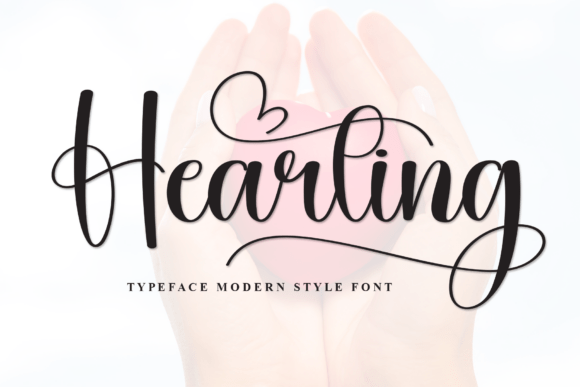
Discover the Refined Elegance of Hearting Font
Have you ever found yourself doodling in a notebook, lost in the flow of a pen or pencil as you create beautiful, whimsical letters? That’s exactly the feeling you get when working with Hearting Font, a stylish script font that captures the essence of hand-drawn calligraphy with a modern twist. Whether you’re a professional designer or a creative enthusiast, this font is sure to delight with its elegant strokes, fluid curves, and carefully crafted letterforms.
With Hearting Font, you can add a refined and sophisticated touch to any design project, from logos and invitations to packaging and social media graphics. Its natural flow and polished details make it an invaluable asset for designers looking to elevate their work. Whether you’re looking to create a unique brand identity or simply want to add some visual appeal to your designs, Hearting Font is the perfect choice.
Key Features of Hearting Font
- Unique Characteristics: Hearting Font features a unique blend of modern and vintage elements, with a distinctive cursive script and elegant typography.
Hearting Font Review
Overall, I think the Hearting Font is a solid choice for designers looking for a modern, elegant script font. Here are some of its strengths:
- ✨ Unique and stylish: The Hearting Font has a distinct, whimsical feel that’s perfect for adding a touch of personality to your designs.
- ✨ High-quality rendering: The font’s lines are smooth, and the characters are well-formed, making it a pleasure to work with.
- ✨ Excellent legibility: Despite its cursive nature, the Hearting Font is easy to read, even at smaller font sizes.
Overall, I think the Hearting Font is a great choice for designers who want a unique, stylish script font. While it may not be perfect, its strengths outweigh its limitations, and it’s definitely worth considering for your next design project.
Tips for Getting the Most Out of Hearting Font
Use Hearting Font to add a touch of whimsy and playfulness to your designs. Experiment with different font sizes, colors, and combinations to create unique and eye-catching effects.